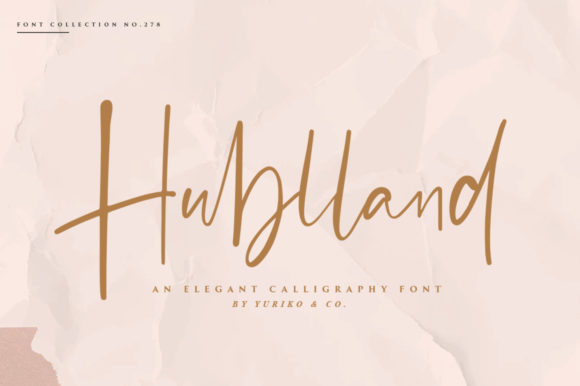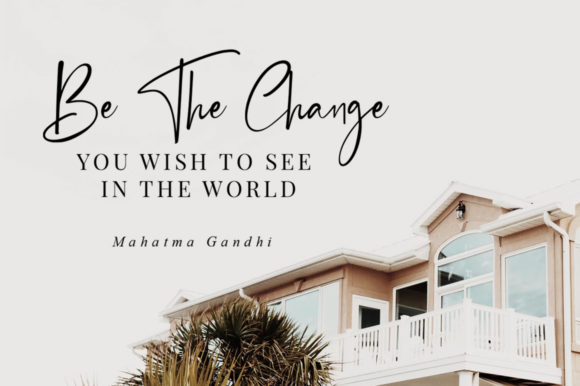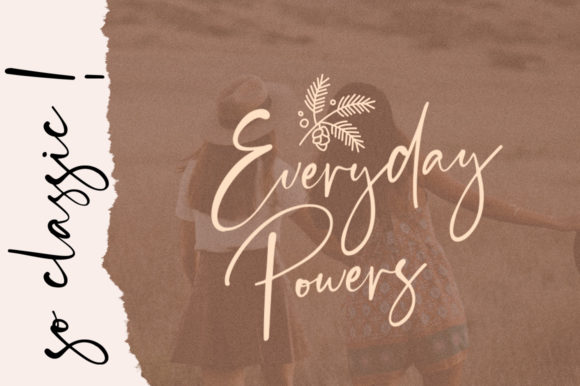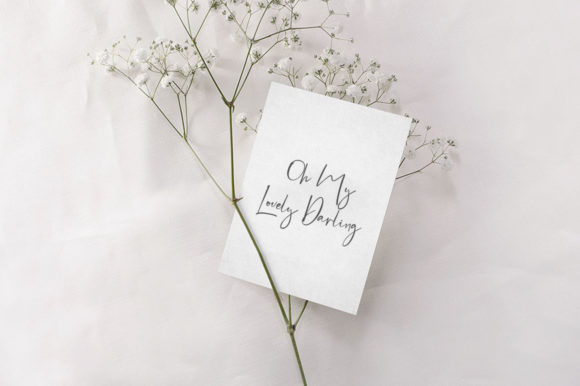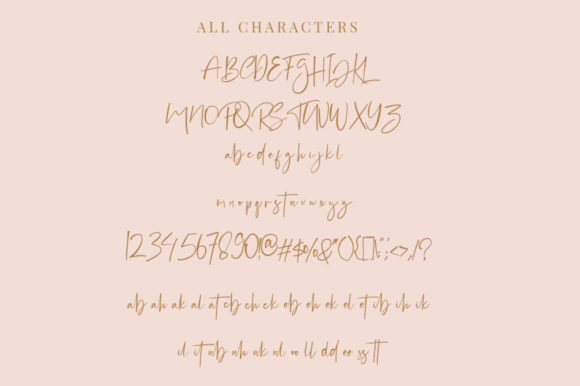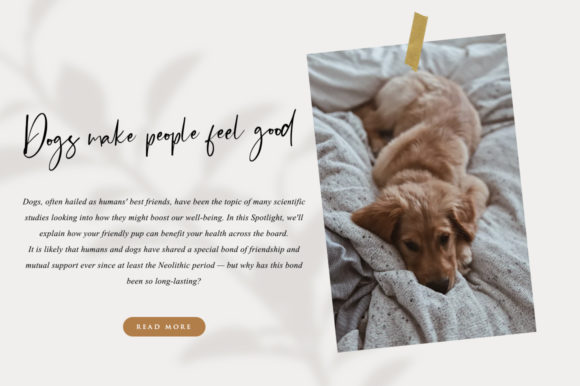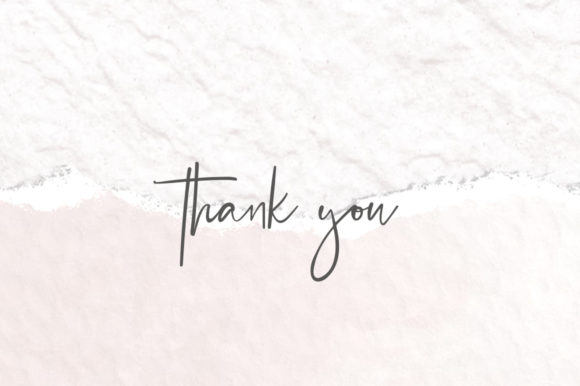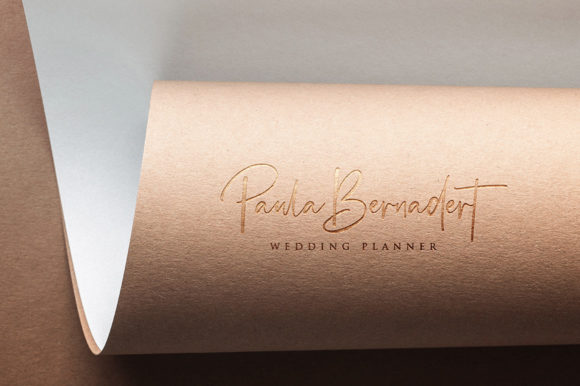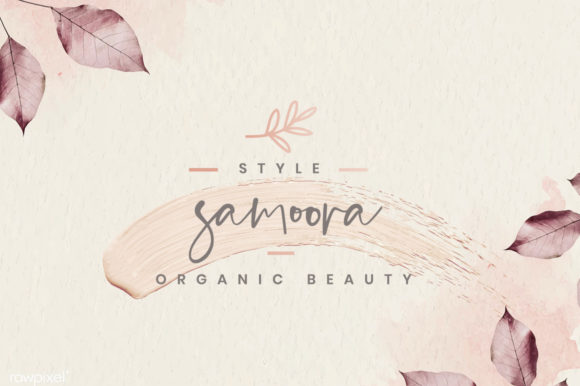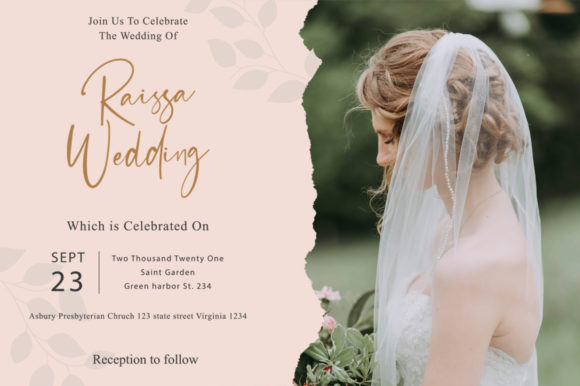
Hublland Font
About Hublland Font
Hublland is modern script font with lovely flow and a natural handwritten appearance. It is perfect for a wide variety of design projects!